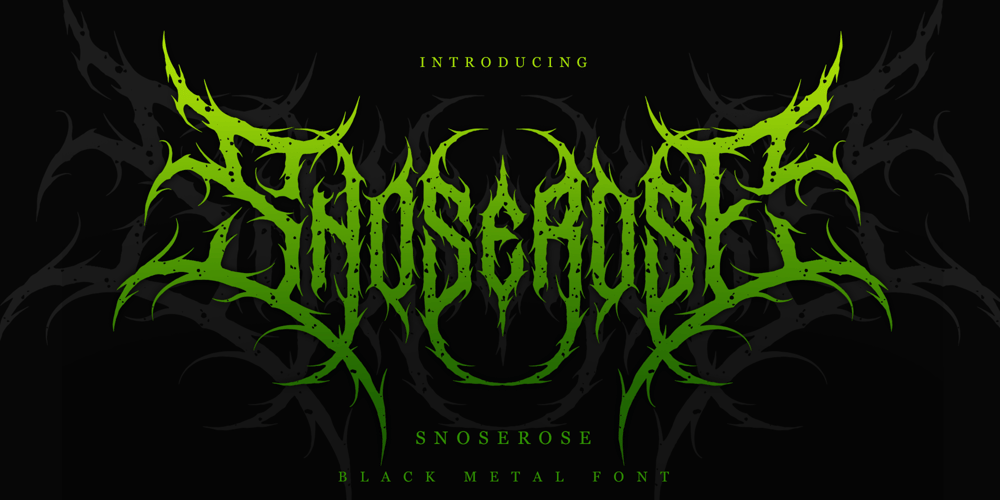
Snoserose Blackmetal Font Family was designed by Achmad Hanif Ulinuha and published by Madhaline Studio. Snoserose Blackmetal contains 2 styles and family package options. We RECOMMEND that you purchase both of these fonts to get the look like in the font preview image.Tutorial : https://www.youtube.com/@madhalinestudioSnoserose is a carefully crafted font, which features a very heavy black metal feel. Snoserose suitable for metal band logos, merchandise, clothing, apparel, or anything that needs a black metal feel.